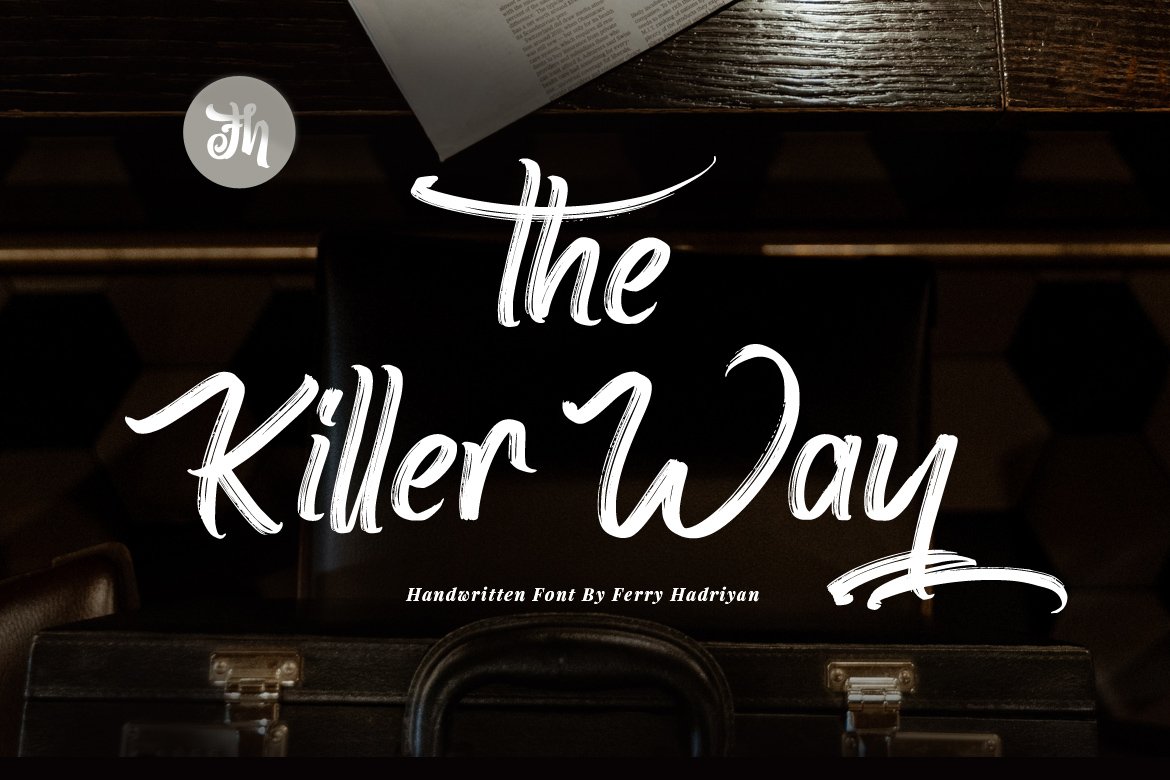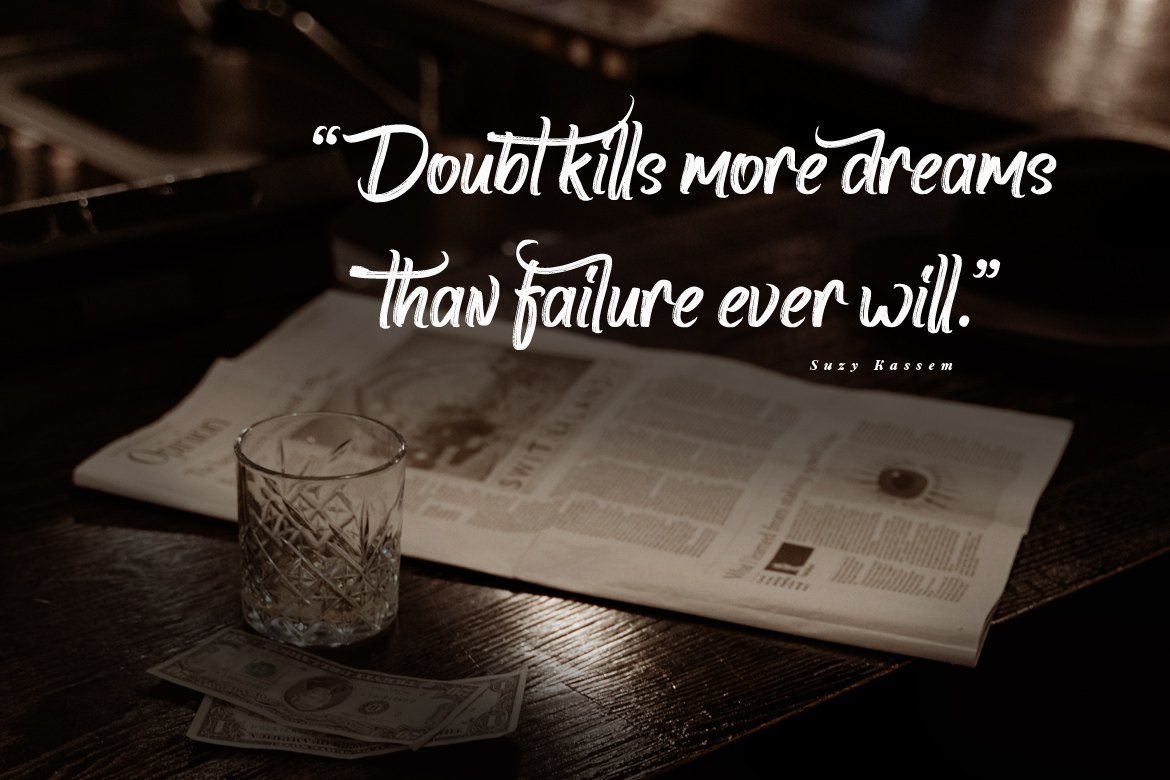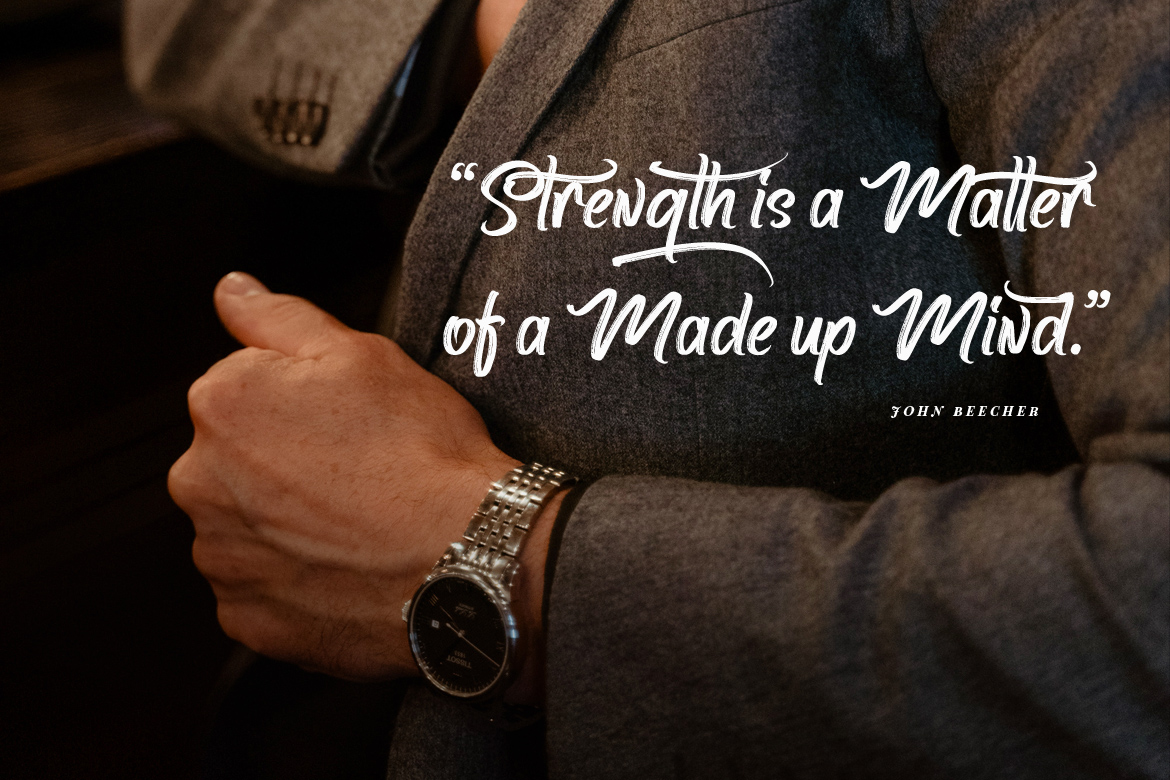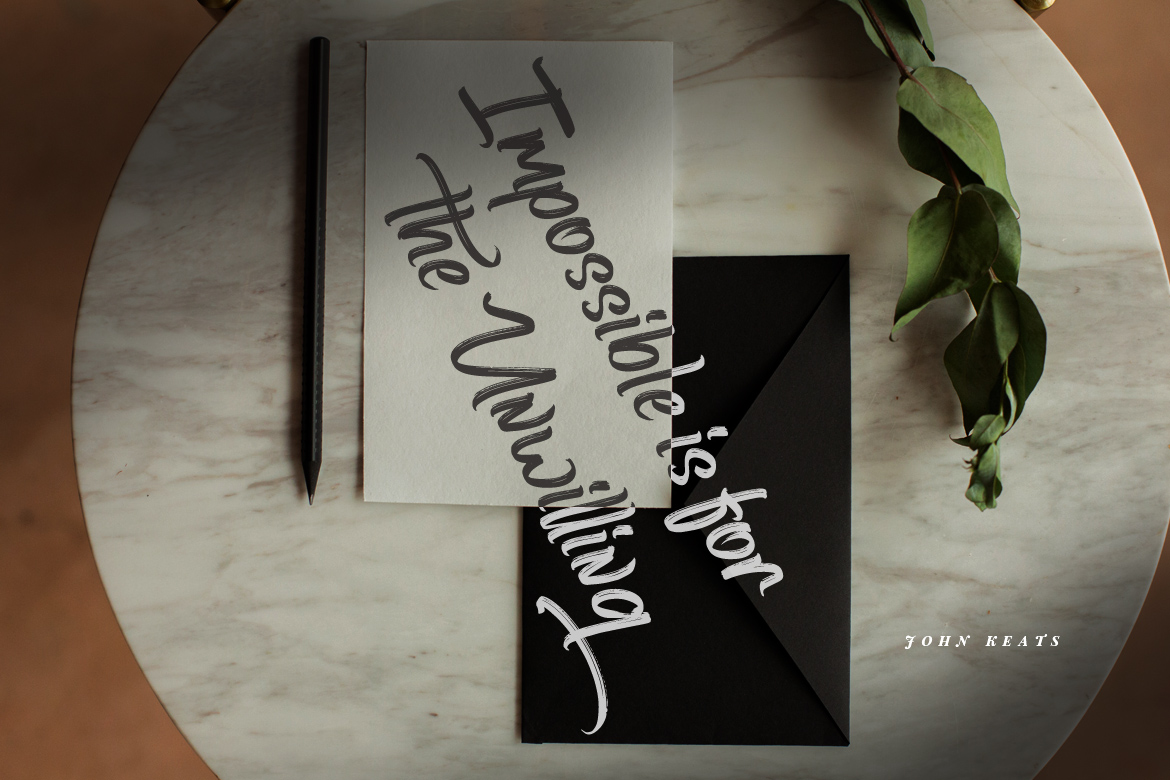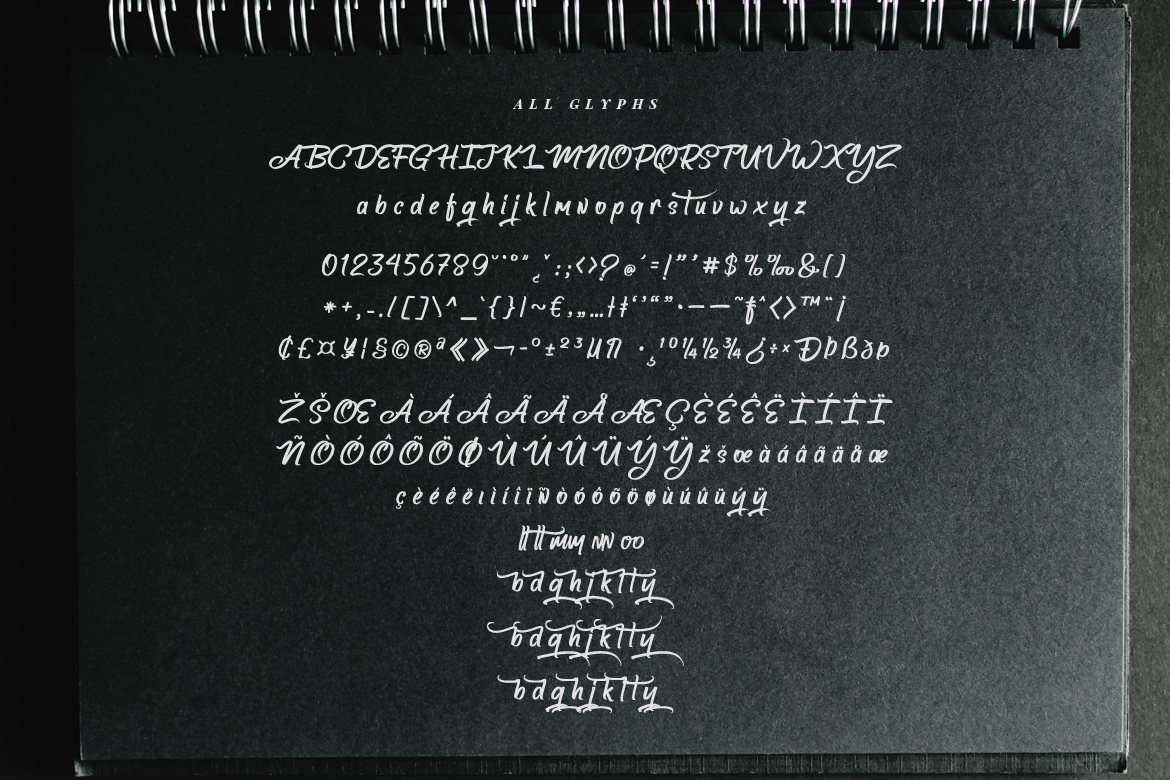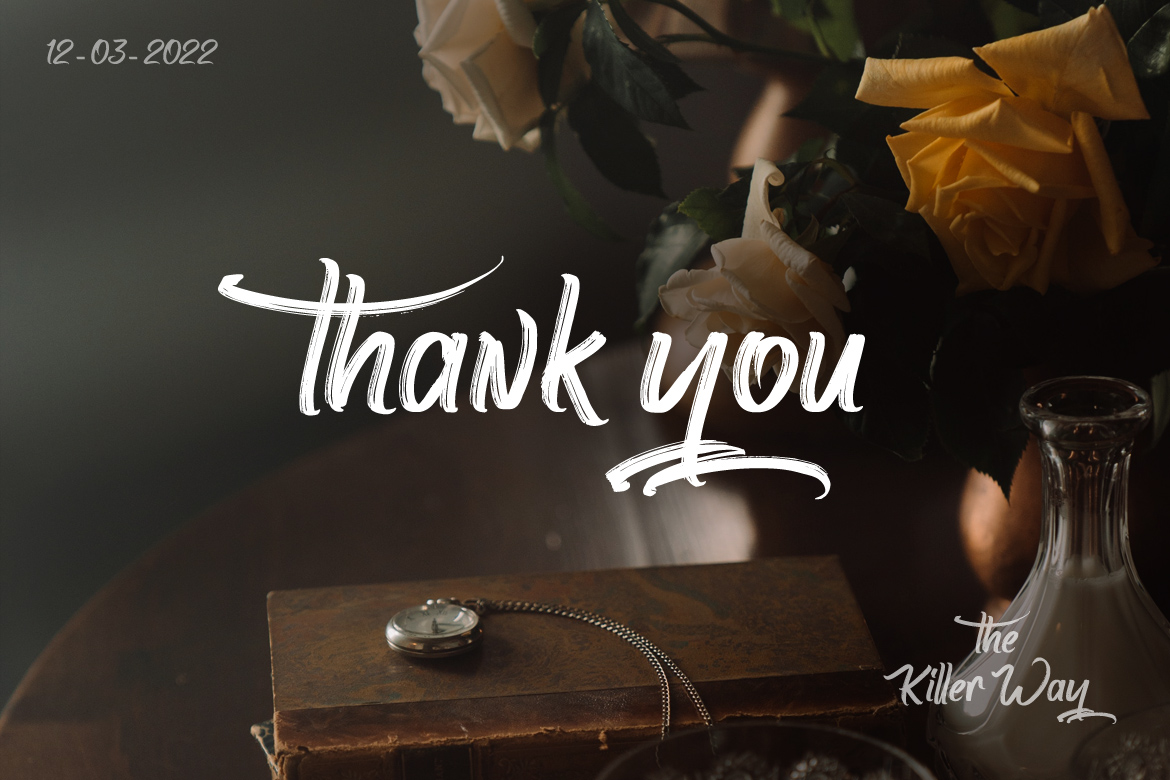
The Killer Way – Handwritten Font
The Killer Way is a script font with a handwritten vintage brush style, with an OpenType feature included in the font. Suitable for design, element design, events, logo, awesome work, etc…
– All Standard Characters, Symbols, Multilanguage, Ligatures, Stylistic Sets, and Swashes.
– Unique style fonts